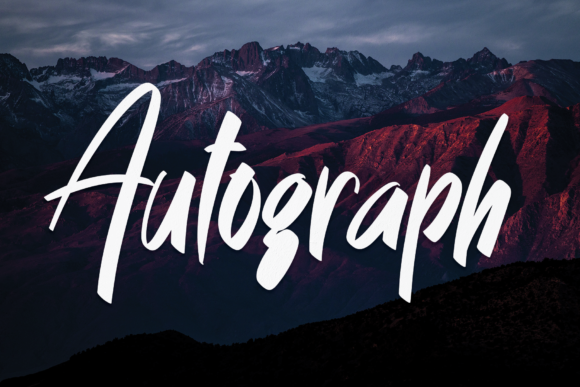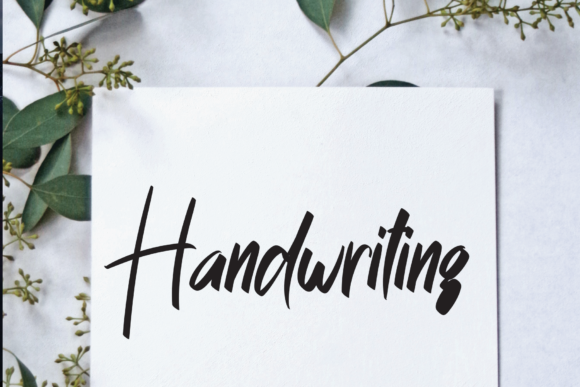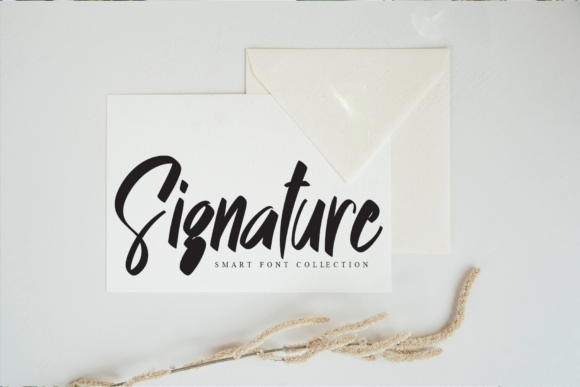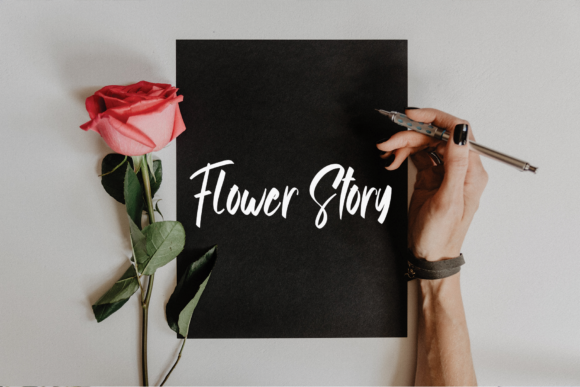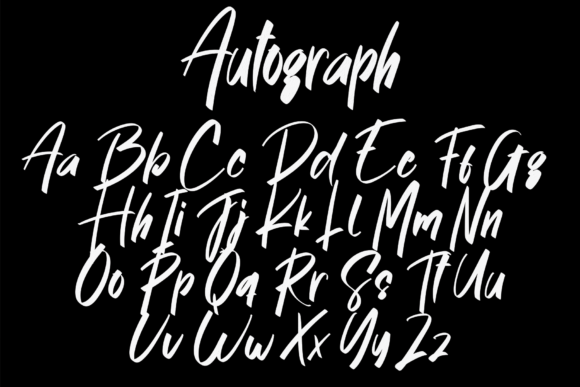
Autograph Font
About Autograph Font
Autograph is a sweet and nostalgic handwritten font. Featuring a romantic style and a modern vibe, this typeface can transform any creation into a true piece of art!